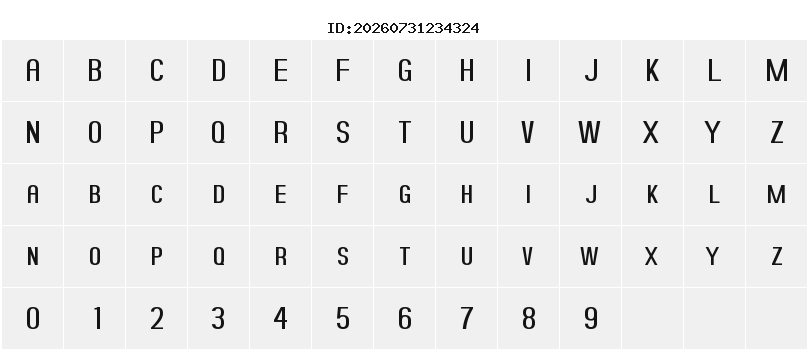
Late Nite Preview
• Font Name: Late Nite
• Full Font Name: Late Nite
• Designer: Dan P. Lyons
About Late Nite.ttf
Late Nite.ttf is a modern, elegant sans-serif font designed for ultimate readability and visual harmony. Perfect for branding, headlines, web design, and print materials.